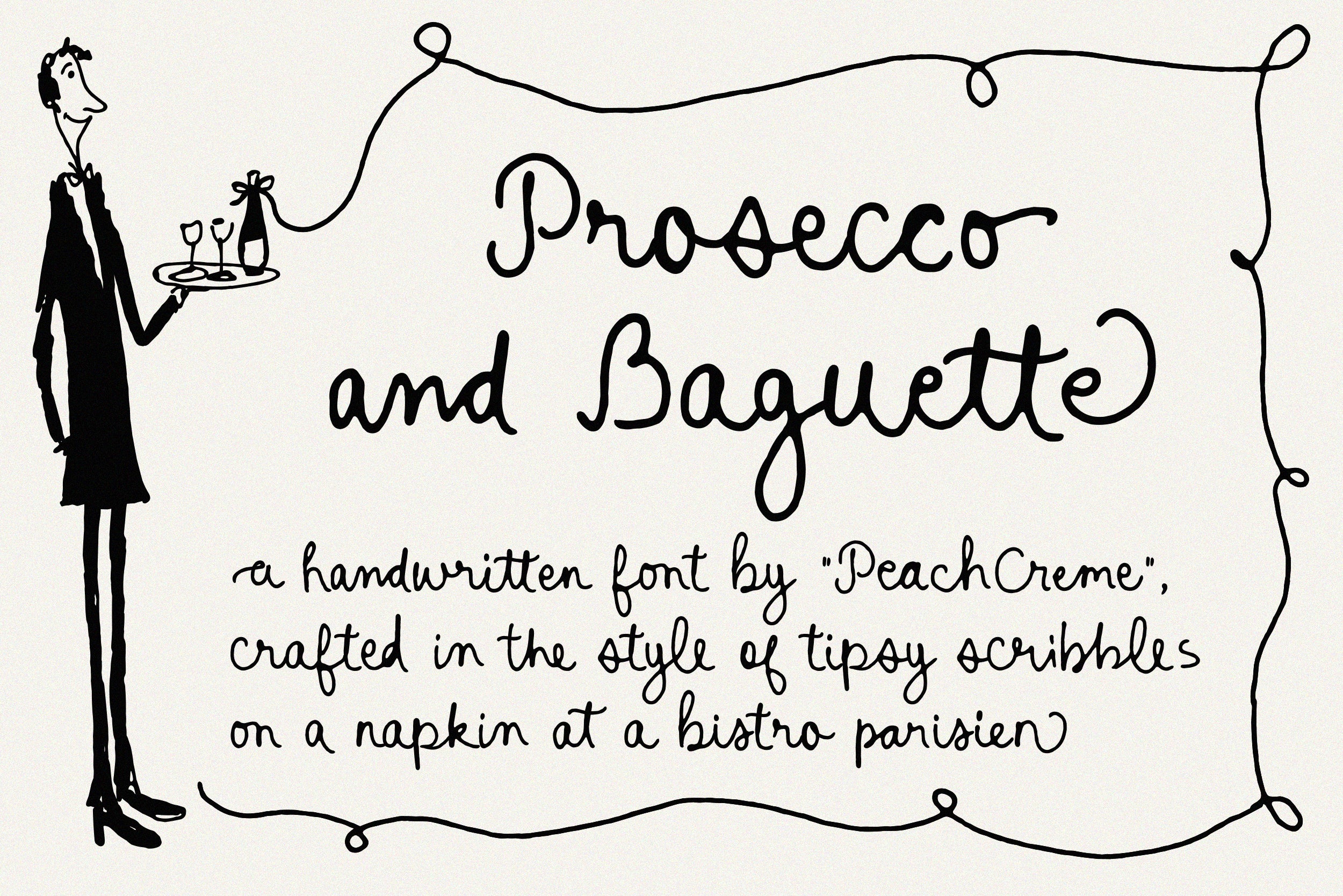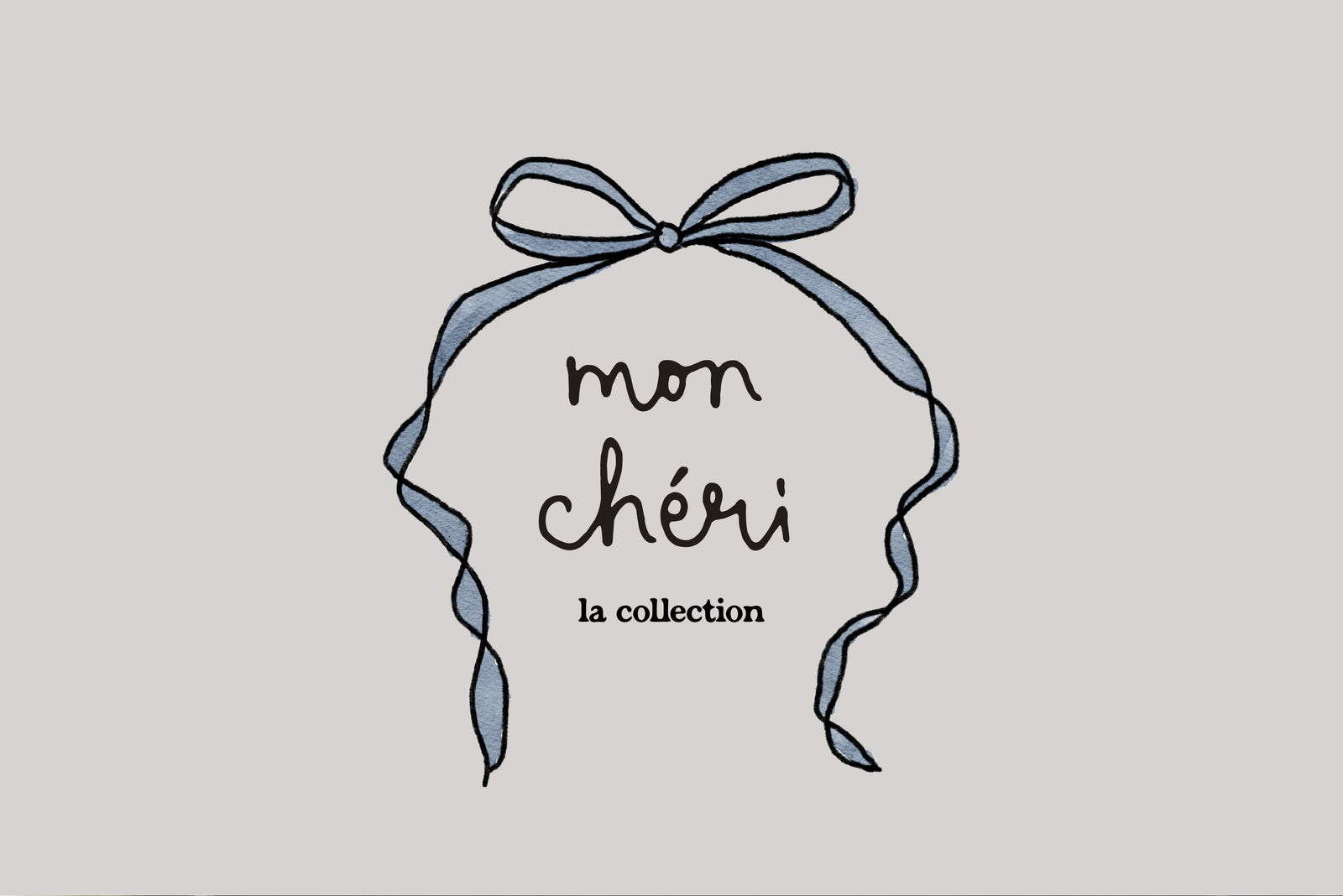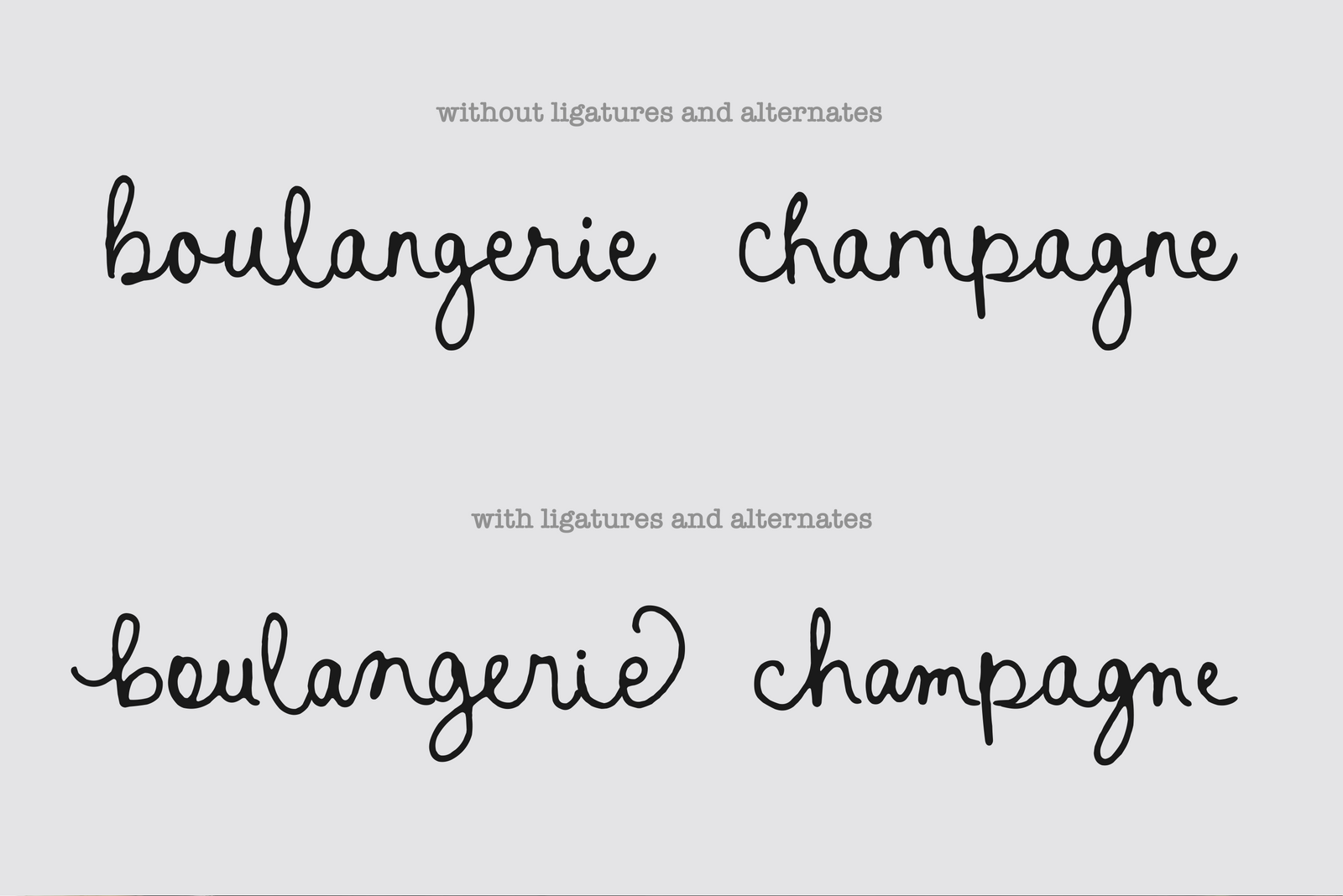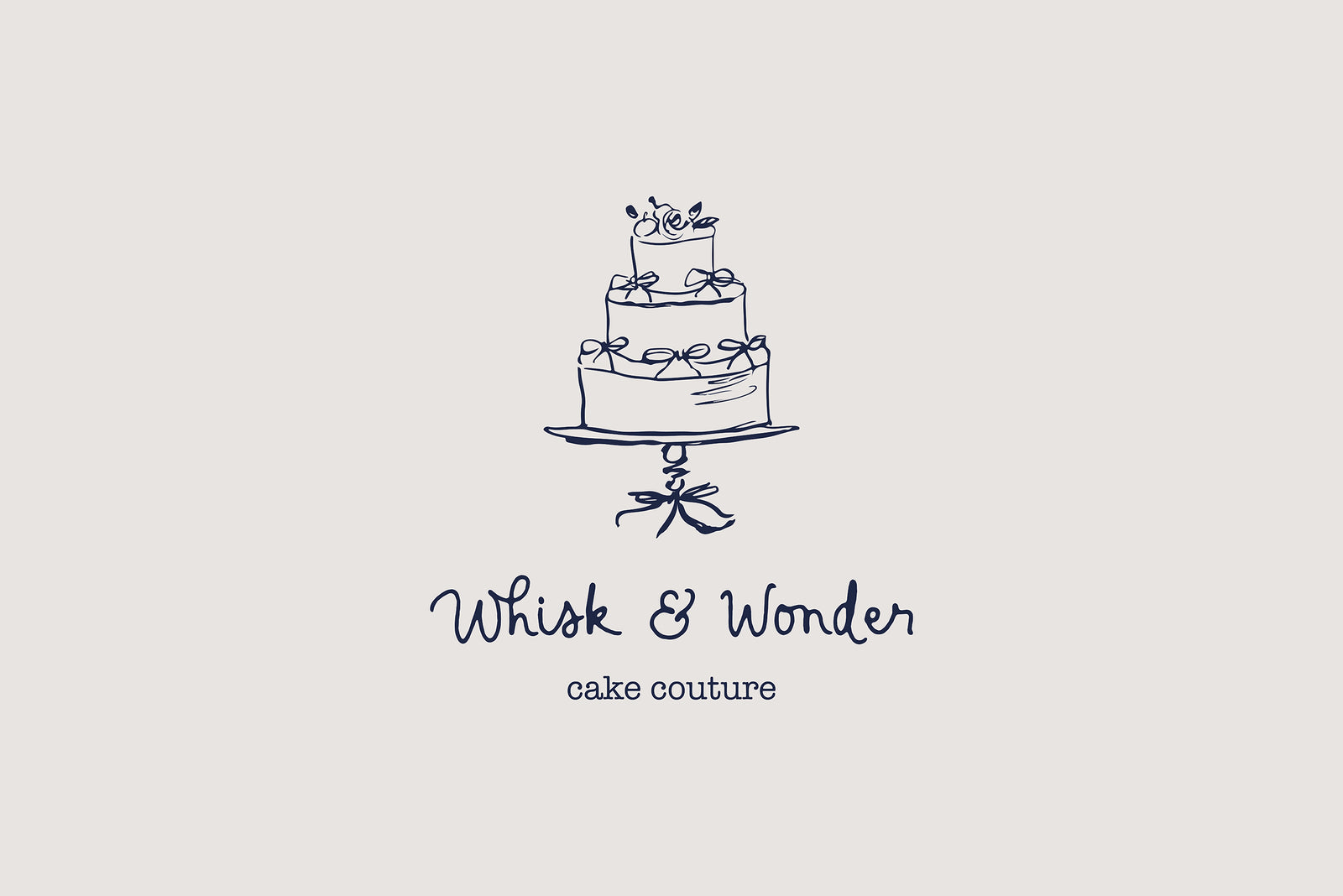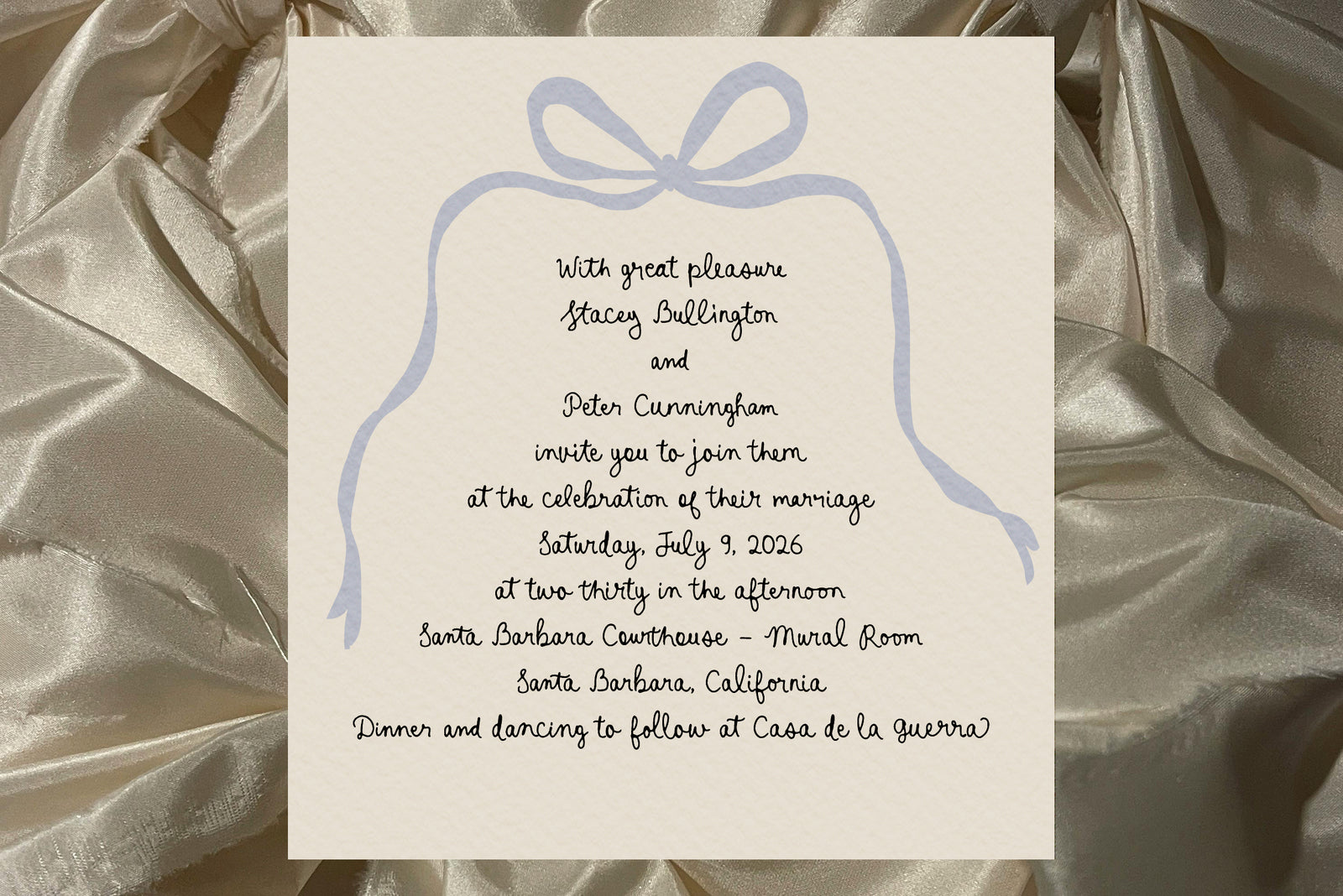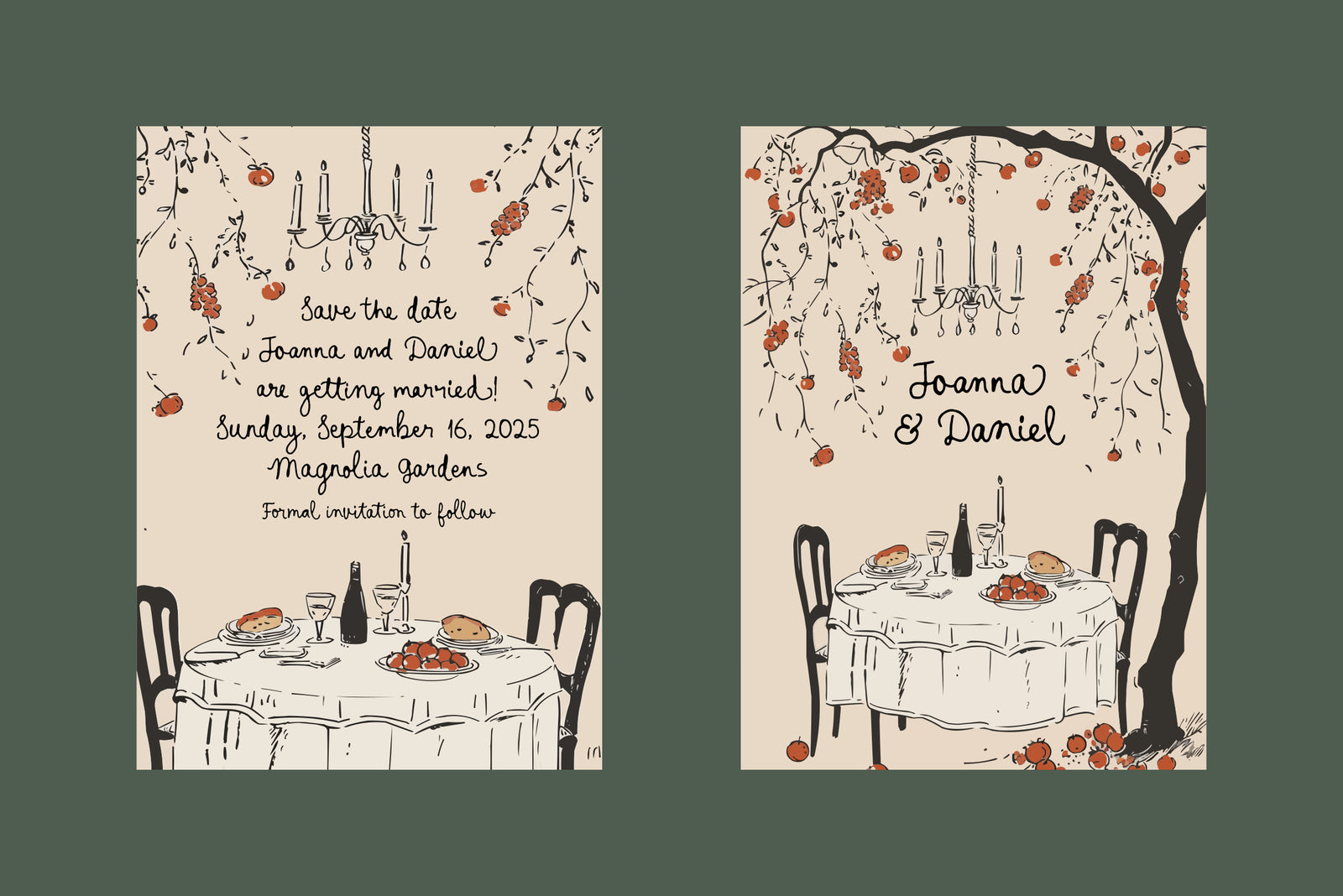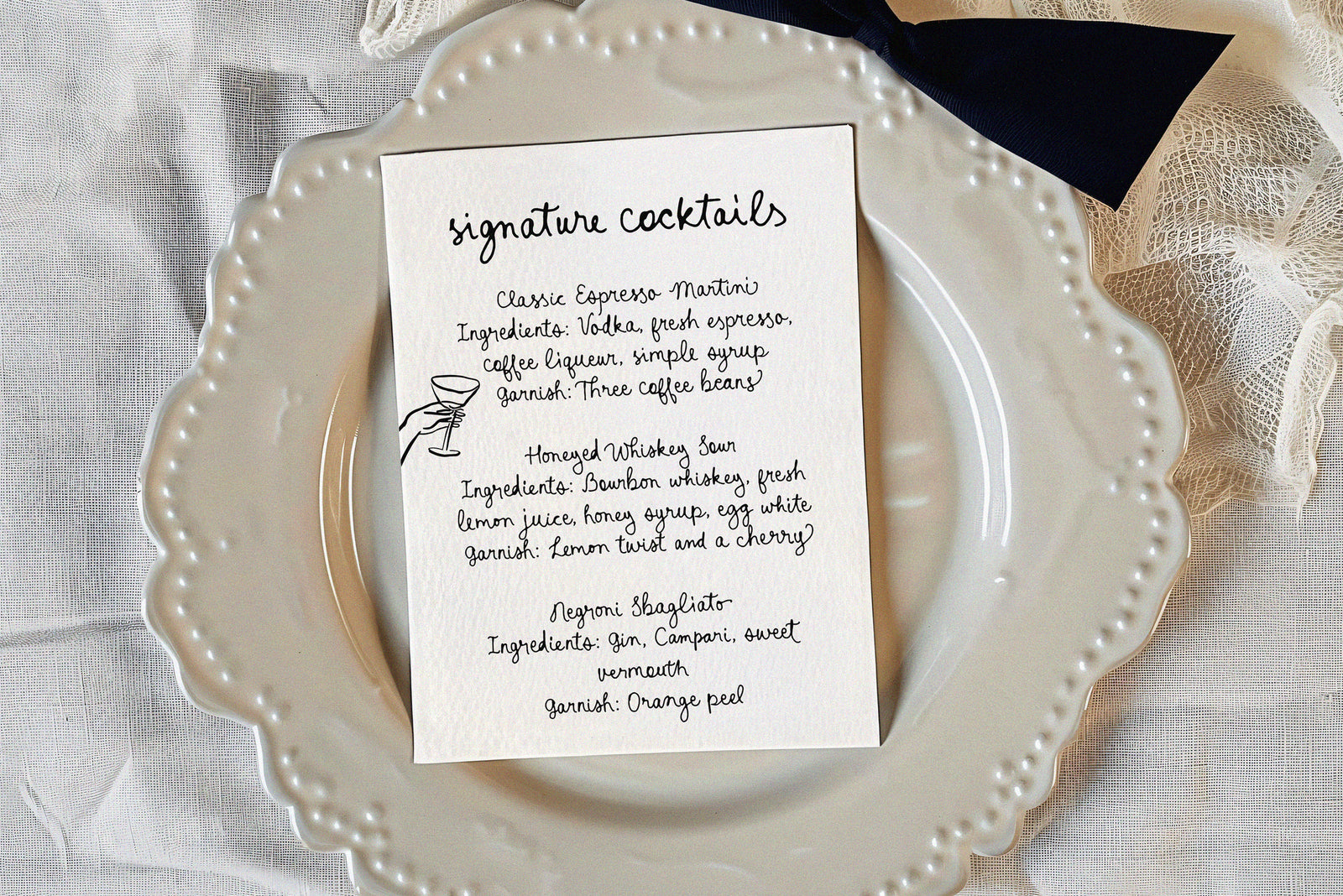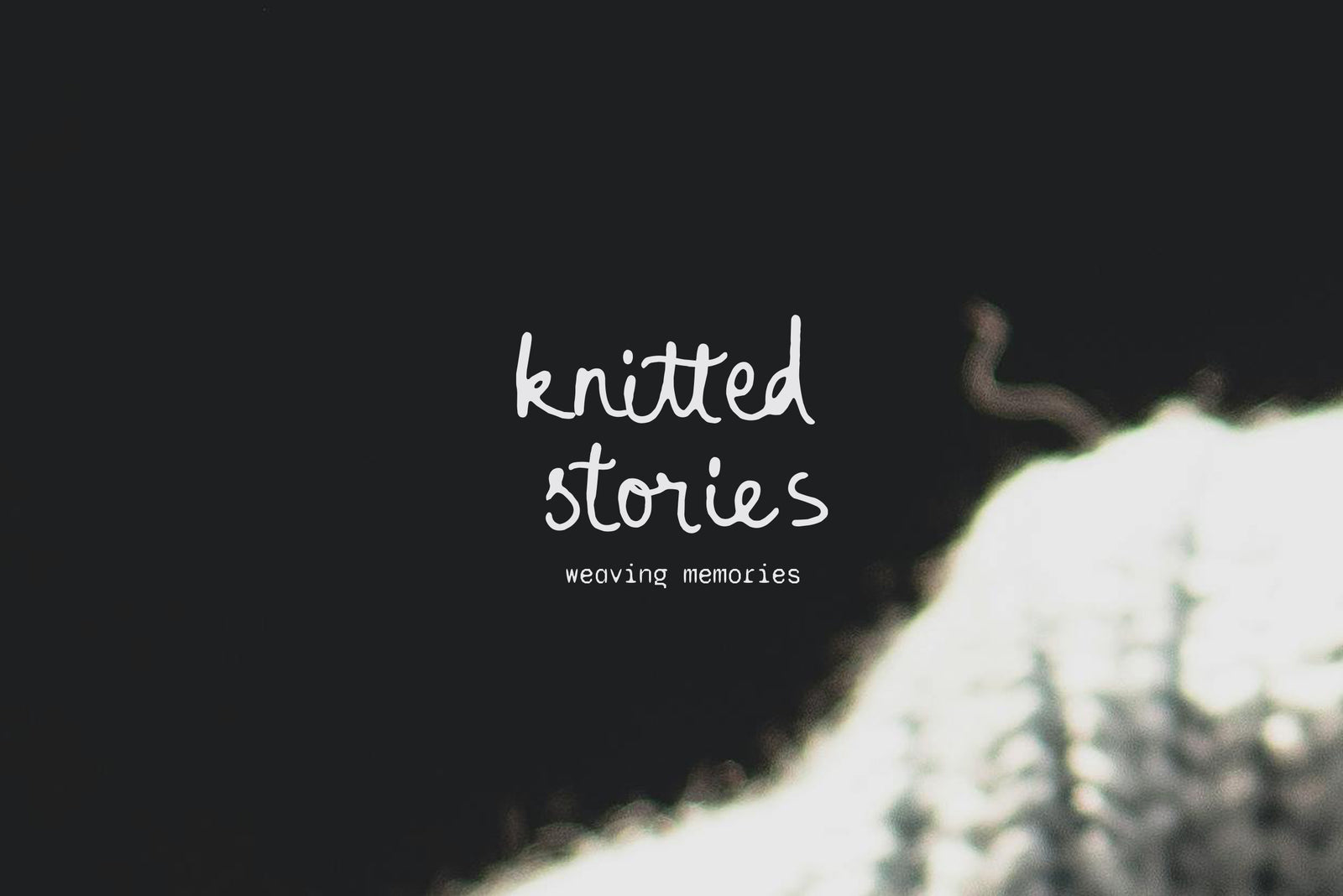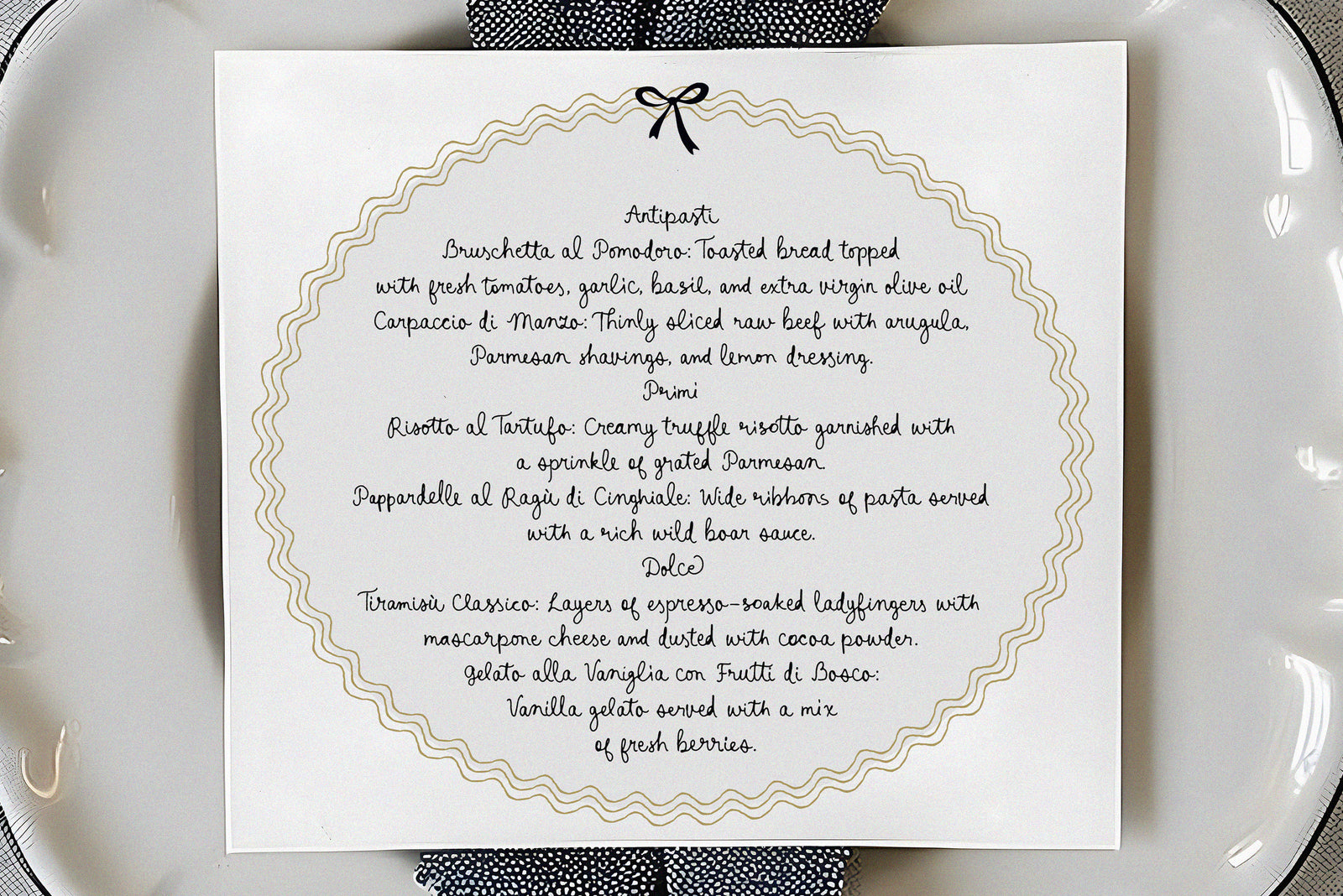
Prosecco and Baguette // Quirky font
Prosecco and Baguette is a handwritten font designed to capture the spirit of a casual scribble. It features a set of 168 ligatures that offer a variety of options for flowing text and stylistic connectivity. Each lowercase letter comes with beginning and ending alternatives, introducing a touch of variety to the start and finish of words. These alternatives are uniquely drawn, with each letter sporting its own swash, ensuring a diverse and handcrafted feel. The font avoids uniformity, aiming to bring an organic character to any piece it graces. Prosecco and Baguette is suited for projects that require a spontaneous handwritten touch, bringing a sense of informality and charm.